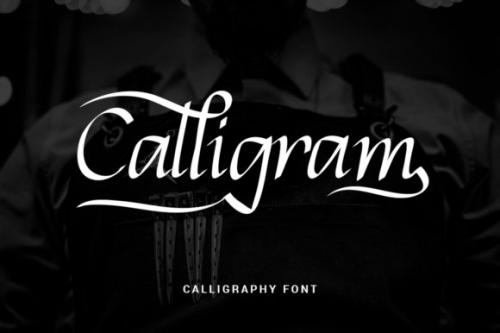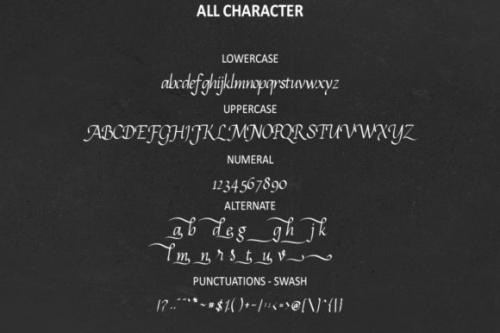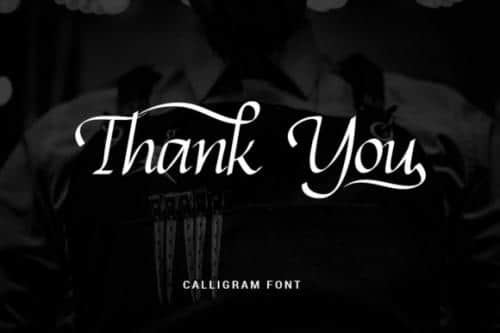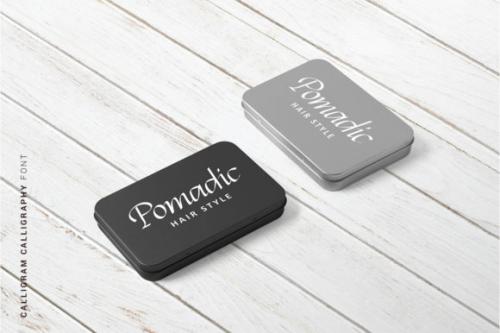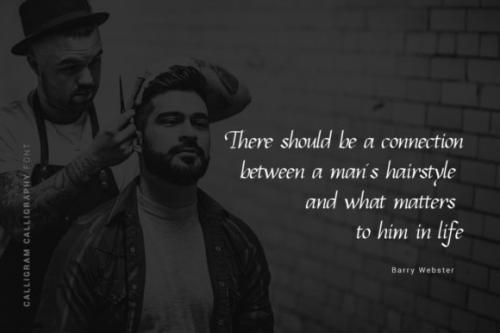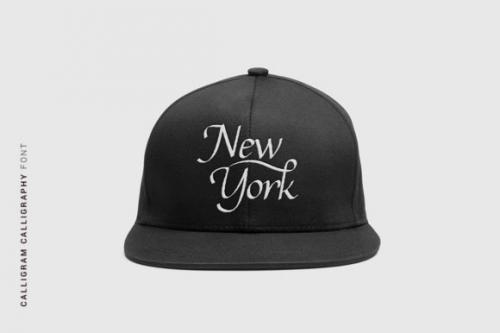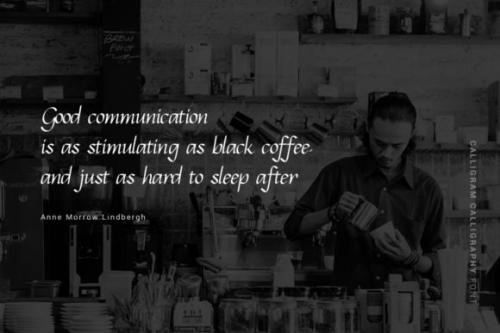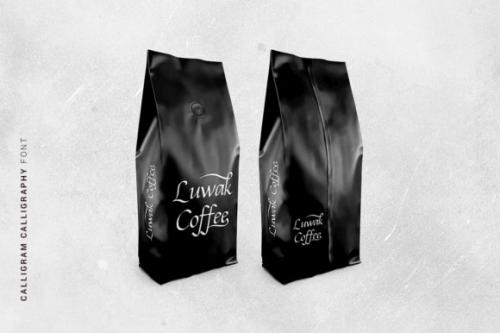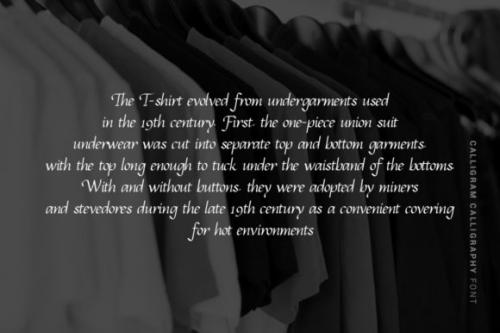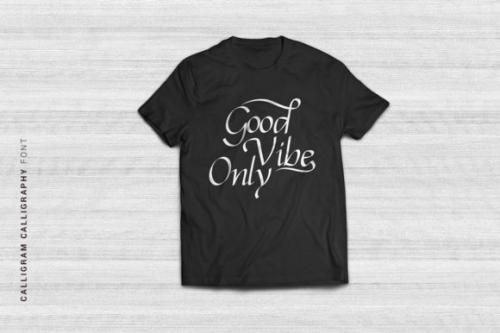
The Calligram is an unique stylish calligraphy font.
It’s perfect for adding a personal charm to your photography, watermarks, social media posts, advertisements, logos & branding, invitations, product designs, labels, stationery, wedding designs, product packaging, special events or anything that need calligraphy or handwriting taste.